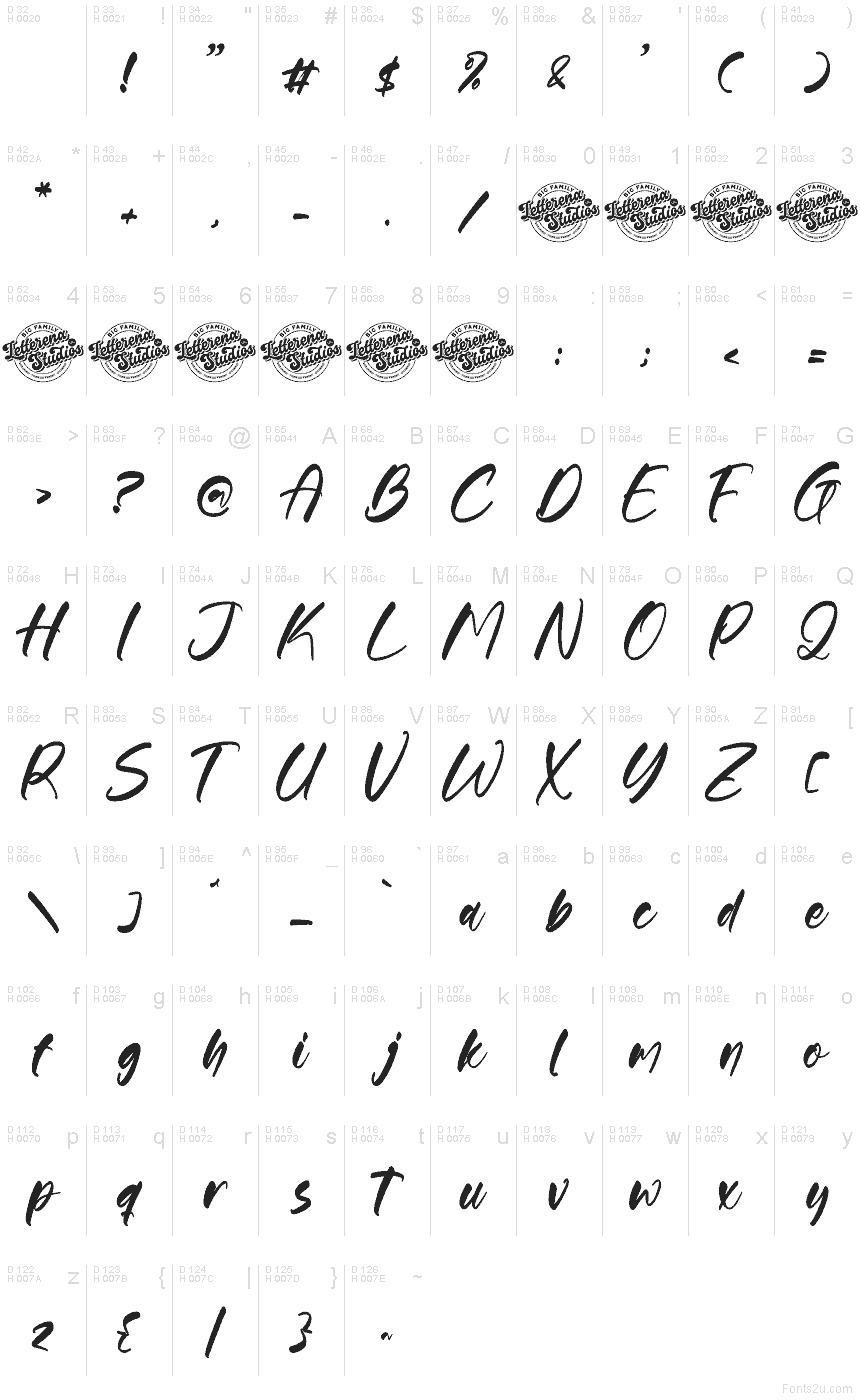
Gouthals Palmetto DEMO VERSION
Gouthals Palmetto font is a handwritten font designed by Letterena Studios, bringing an expressive, artistic flair to its users. The display font comes with casual elegance and contemporary style all in one place. With its creative design and uneven edges, it can offer any text a natural look.
Free for your use, the versatile display of Gouthals Palmetto allows it to be included in photography projects as well as branding presentations for stores and businesses. Logo designs won’t be complete without this font even if they’re used for the handwritten signature of artists or authors while invitations cards (wedding/engagement) can have that elusive elegant finish with uncomplicated work input. Gouthals Palmetto can also be added to other card designs like gift cards and business cards in addition to dashing magazine covers and headlines or posters.